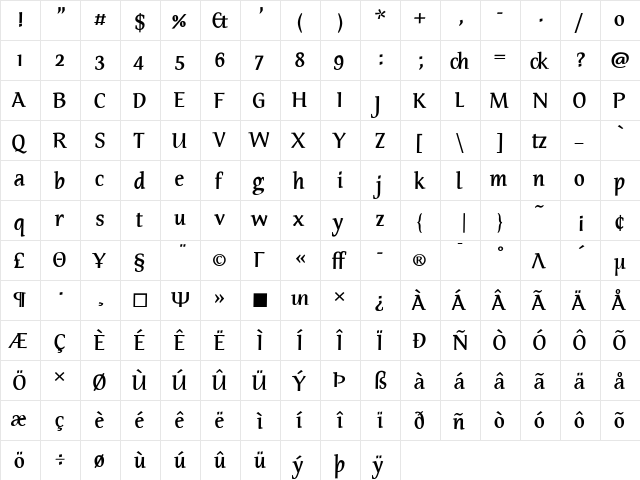
TarquiniusPlus DemiBold
Design Context for TarquiniusPlus Typeface
TarquiniusPlus is a composed and adaptable typeface that performs quietly and consistently across a wide range of design contexts. The heavy weight commands attention and anchors typographic hierarchies.